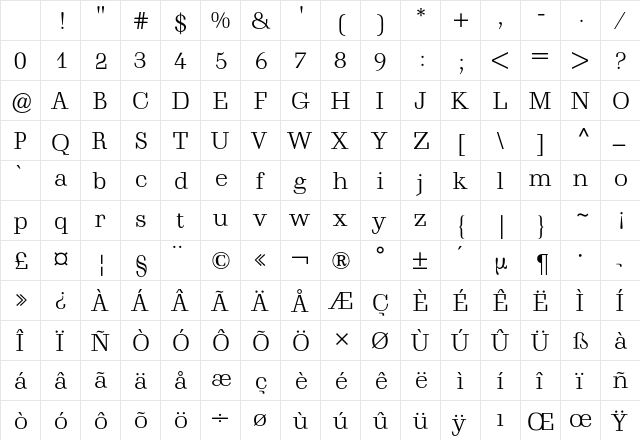
Schadow-Antiqua BQ Regular
Schadow-Antiqua BQ Family
Schadow-Antiqua BQ Regular
Complete Schadow-Antiqua BQ Regular glyph index. Displaying only characters natively supported by Schadow-Antiqua BQ Regular font.
Design Context for Schadow-Antiqua BQ
Schadow-Antiqua BQ is a composed and adaptable typeface that performs quietly and consistently across a wide range of design contexts.